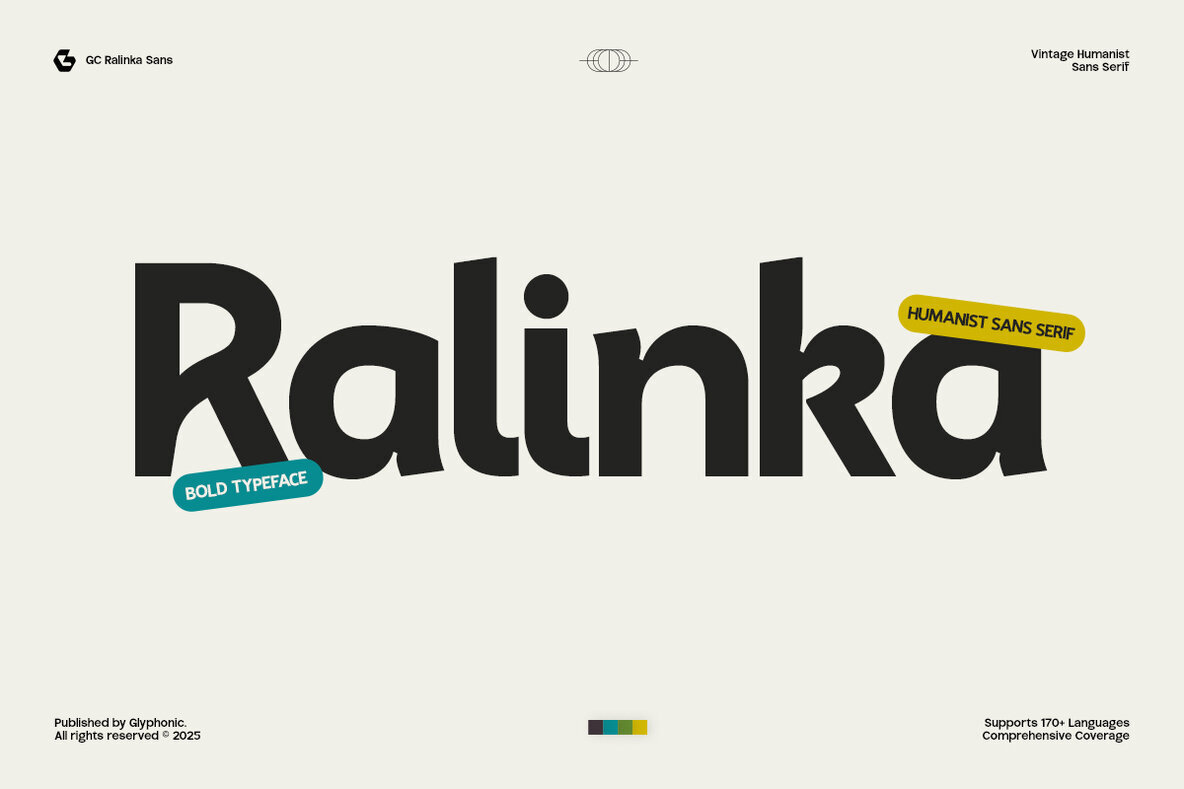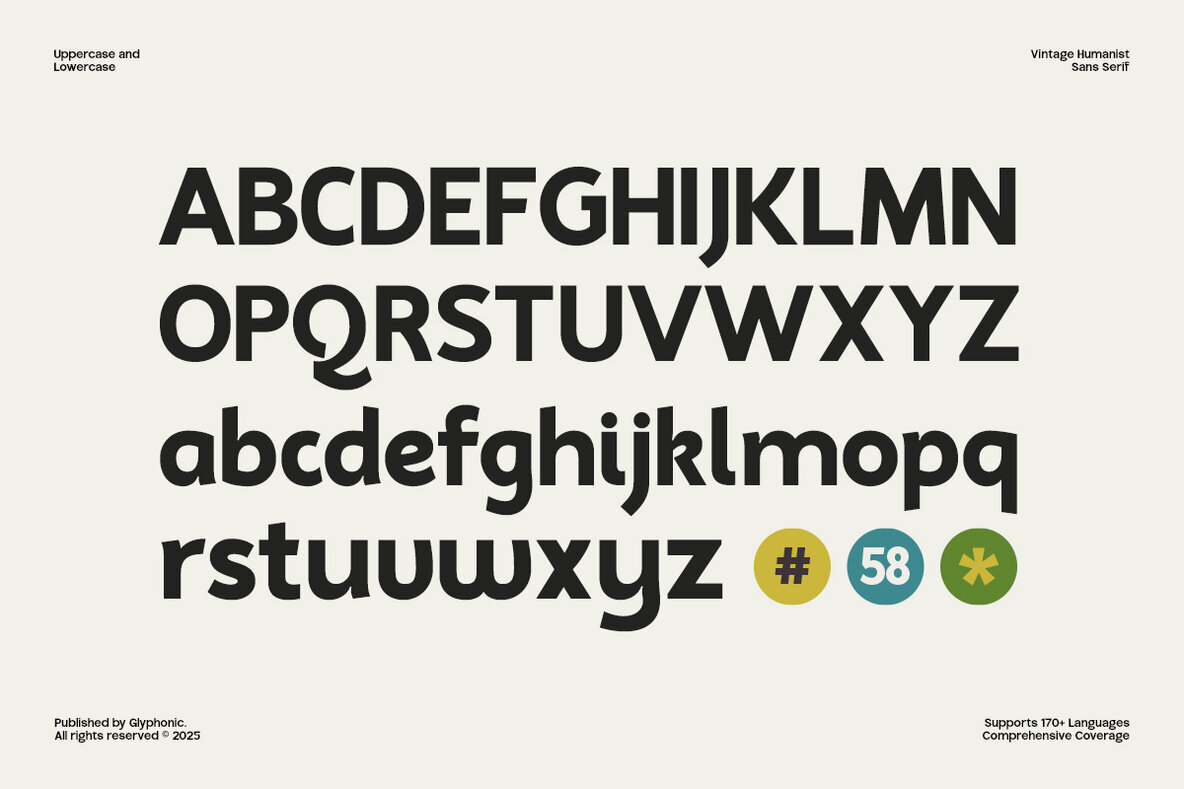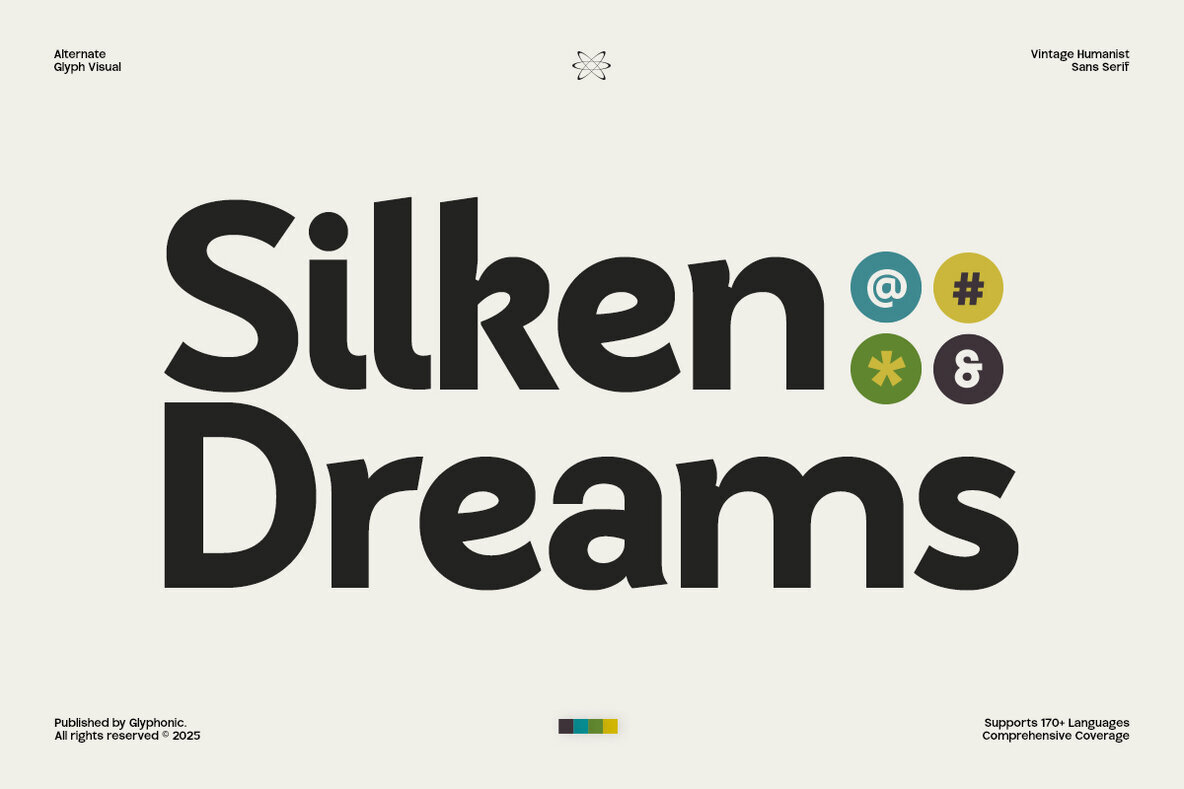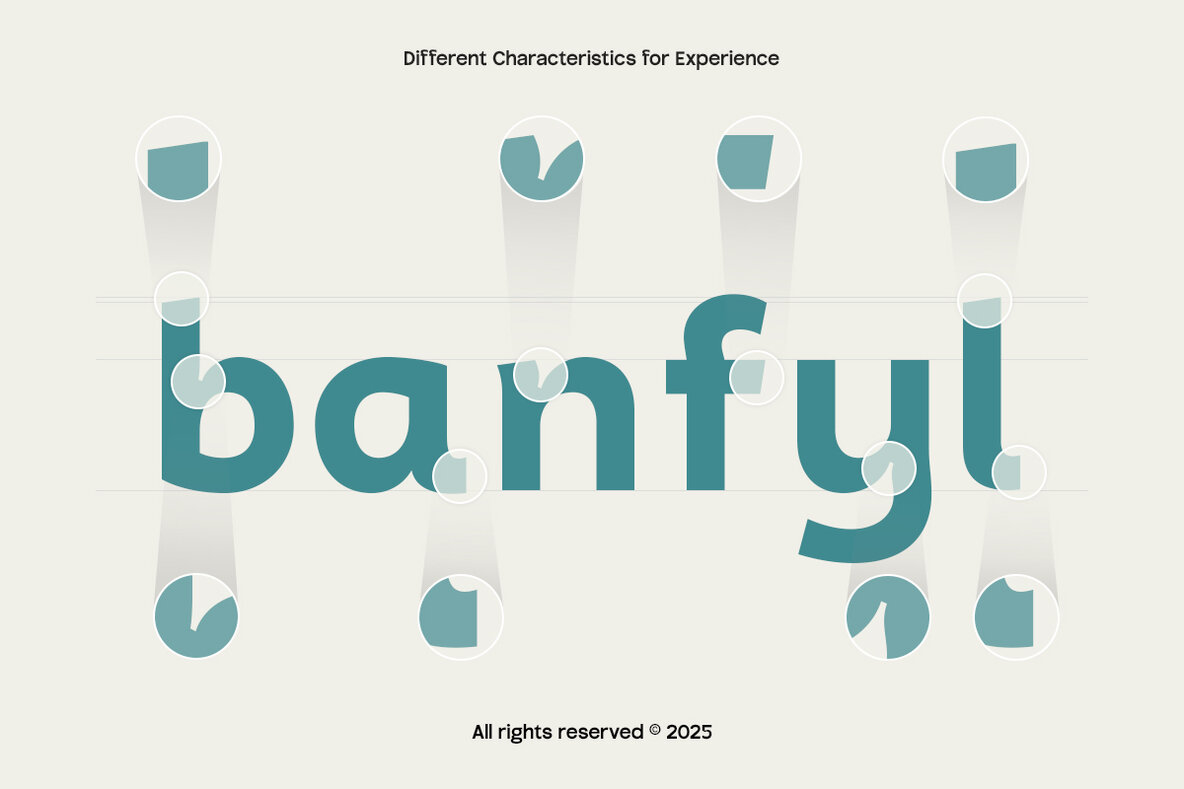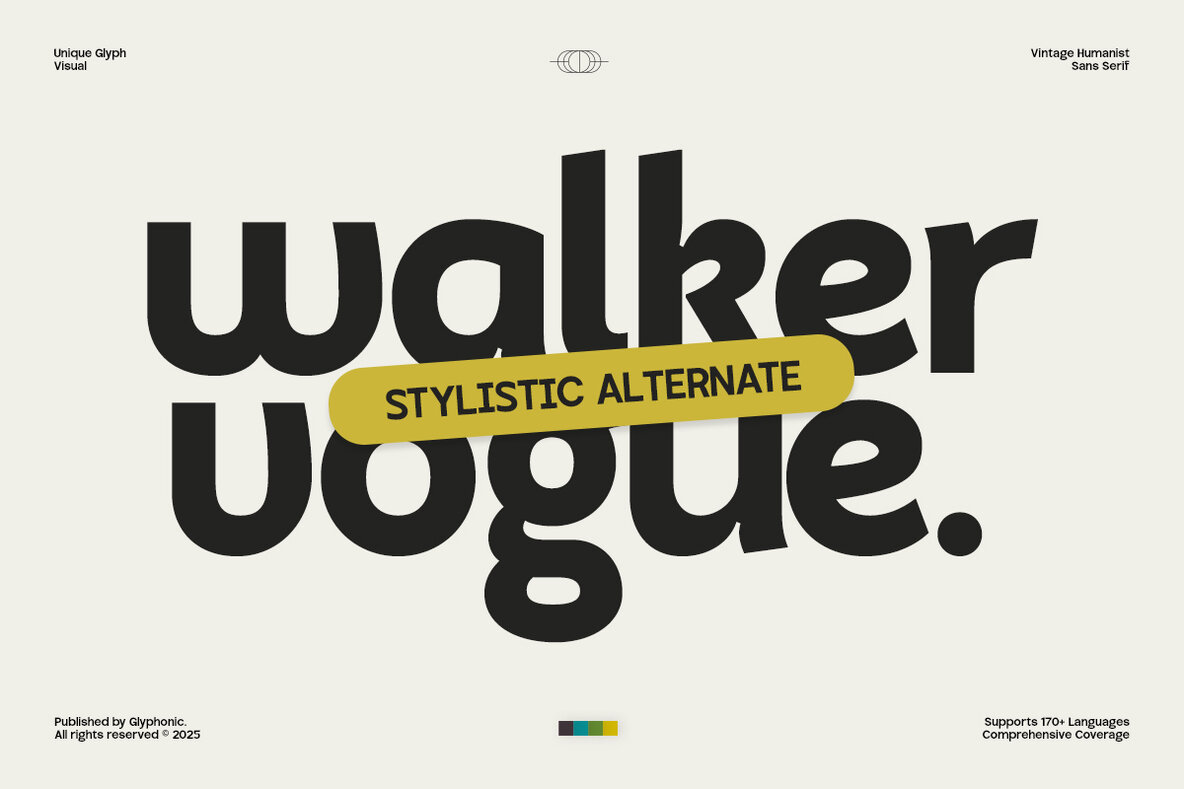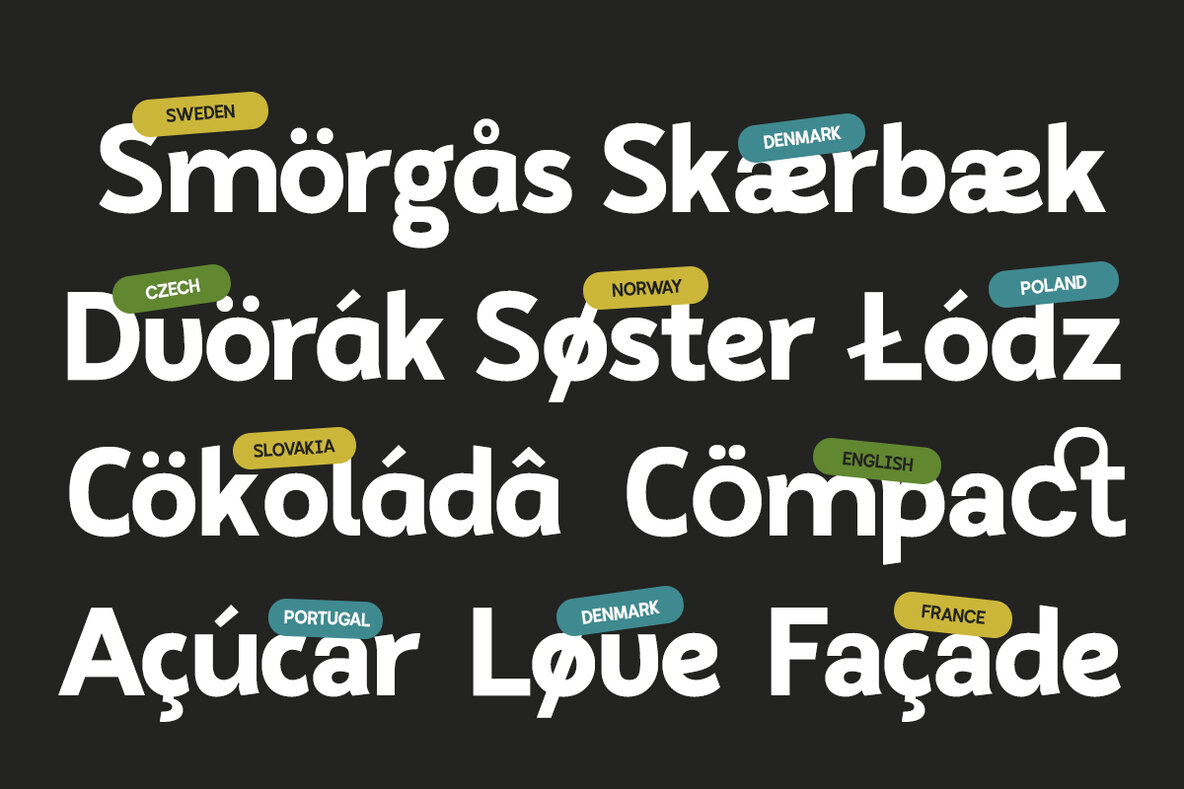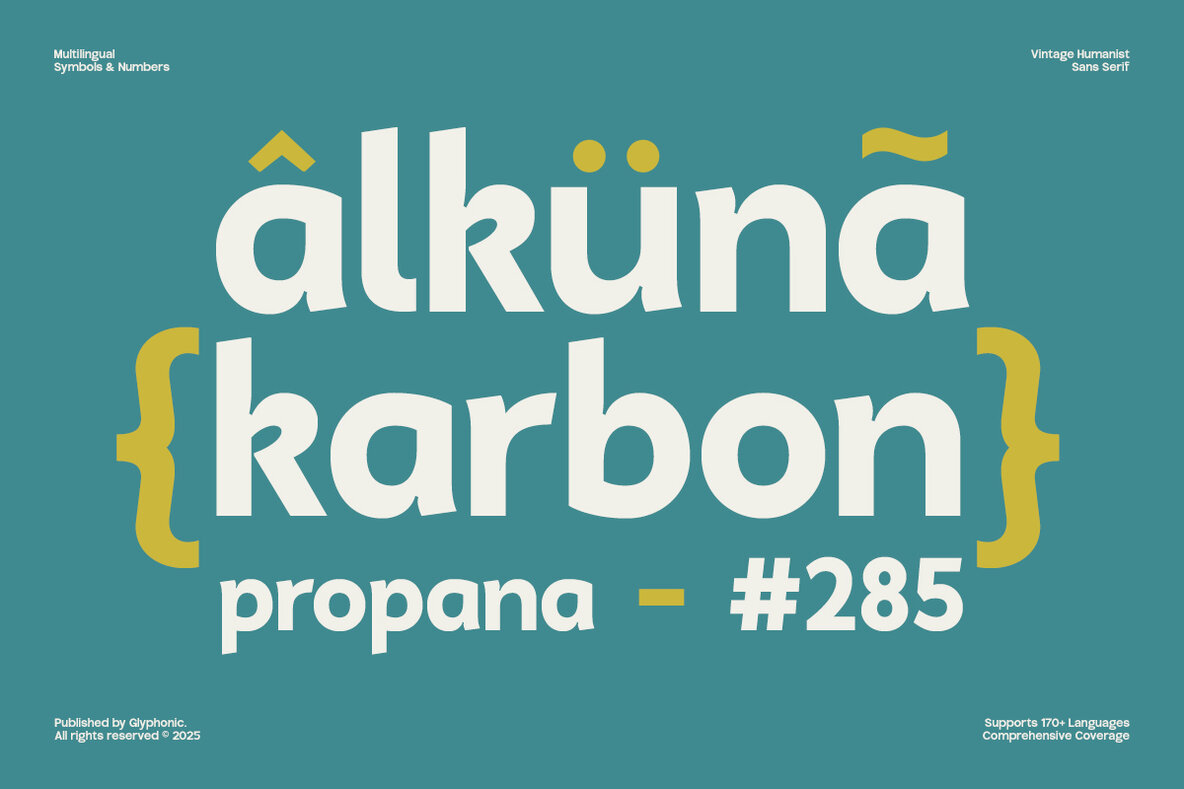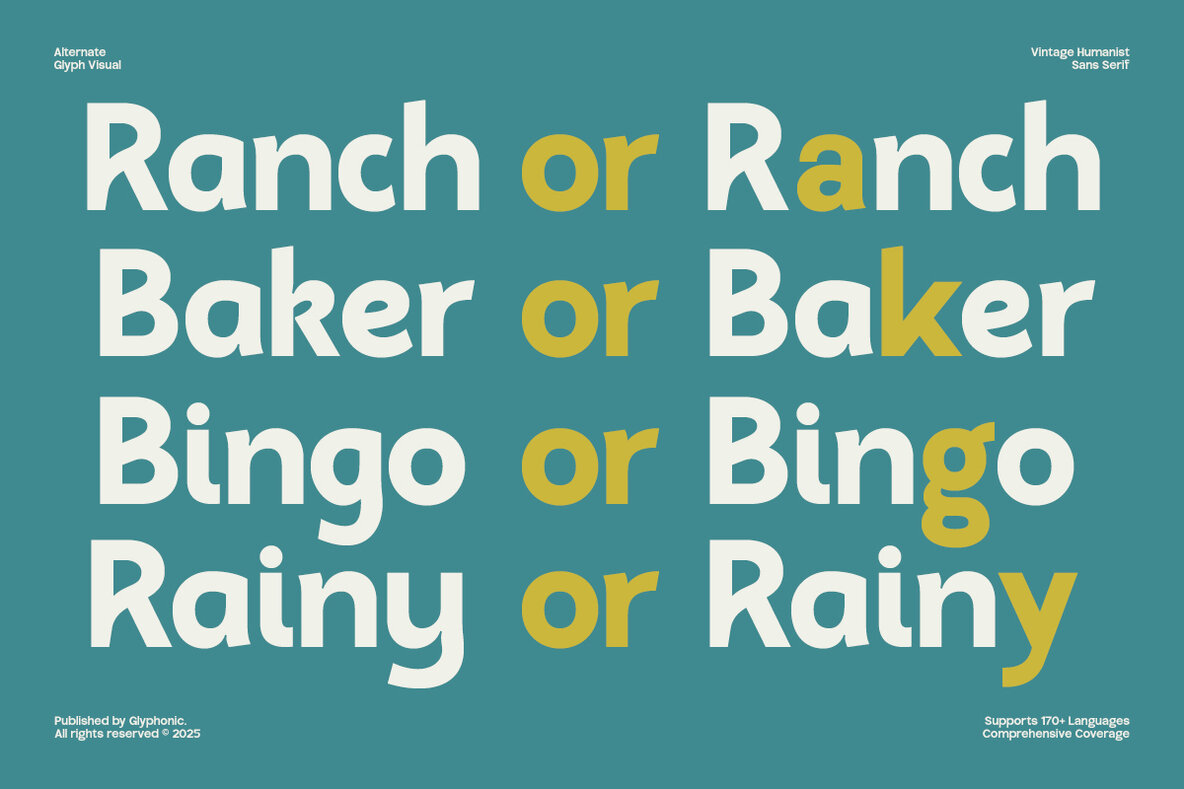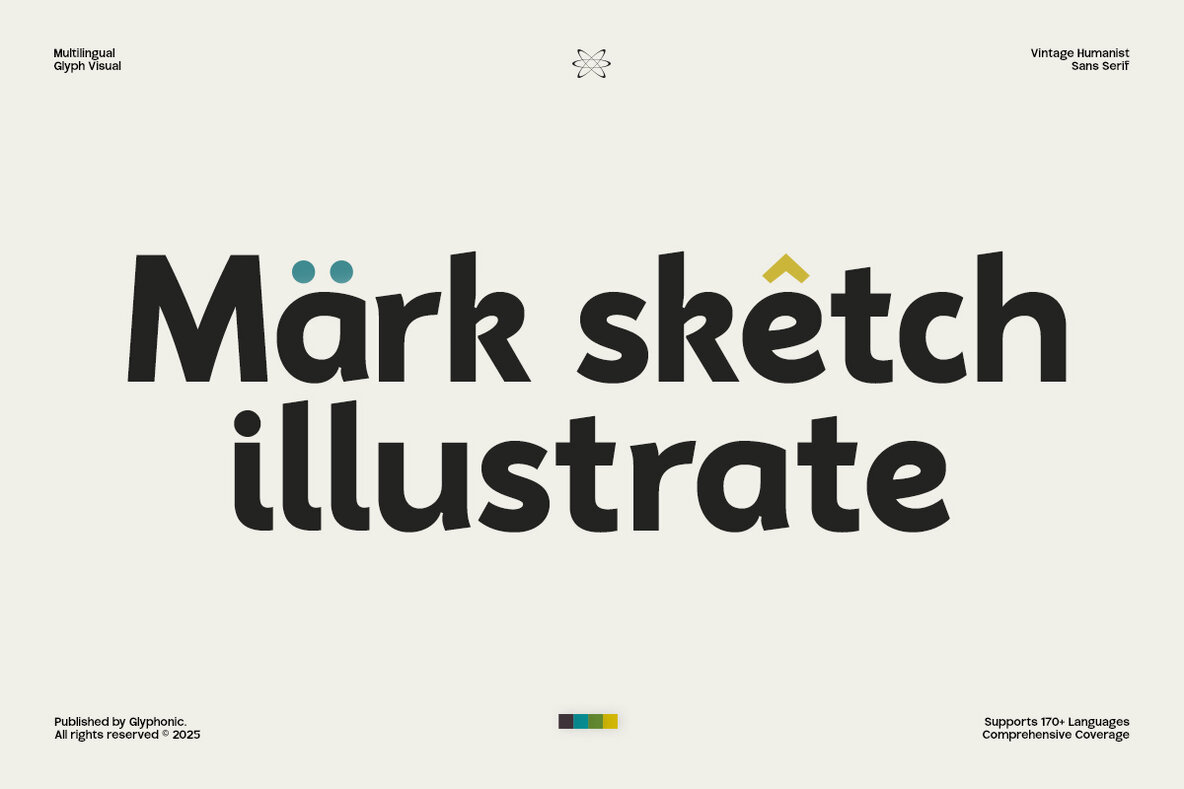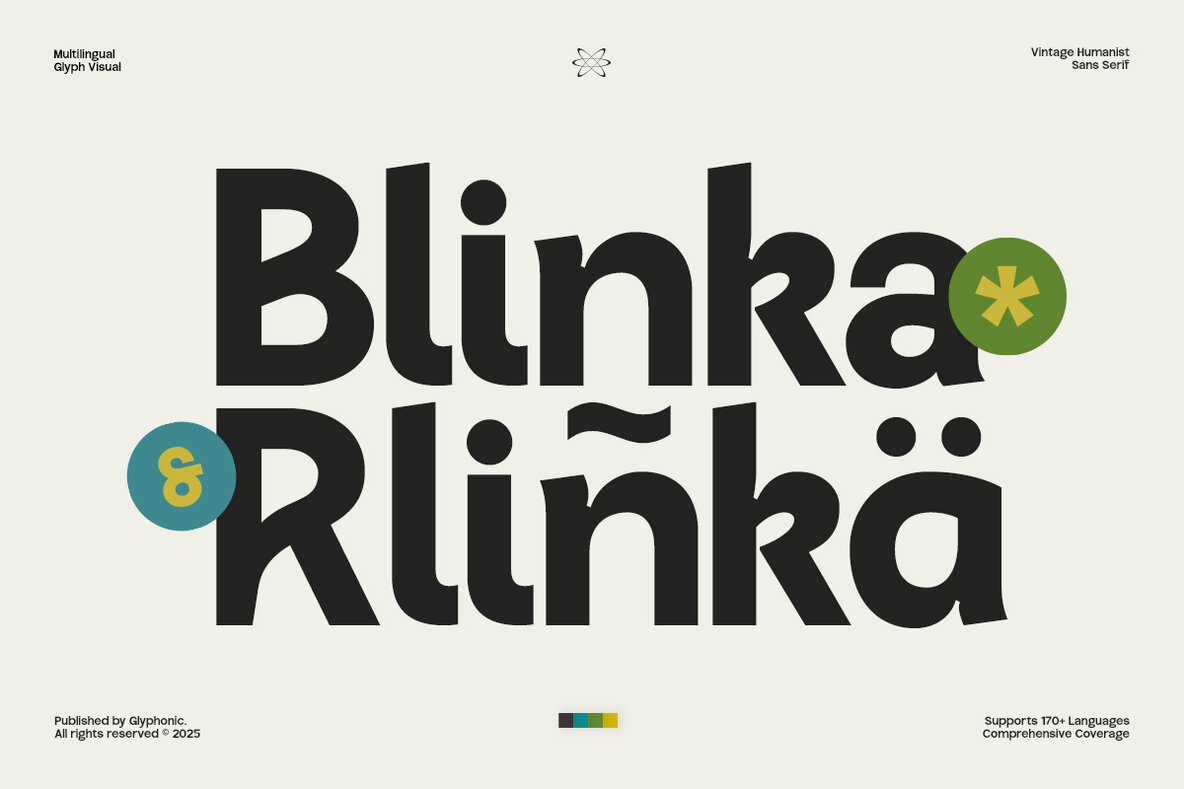
GC Ralinka Font
GC Ralinka Extra Bold
GC Ralinka artfully combines boldness with warmth, encapsulated in its humanist sans-serif design. With an emphasis on readability and modern aesthetics, it perfectly fits headlines, branding, logos, and more. Its design ensures clarity and leaves a remarkable impression in both print and digital formats. The typeface features strong letterforms paired with subtle curves and balanced proportions, projecting a professional yet approachable tone. GC Ralinka thrives in diverse settings, from lifestyle branding to corporate identity projects, offering versatility and elegance. Features: Elevate your designs by choosing GC Ralinka for a look that is both bold and enduring.GC Ralinka: Humanist Sans-Serif with Character